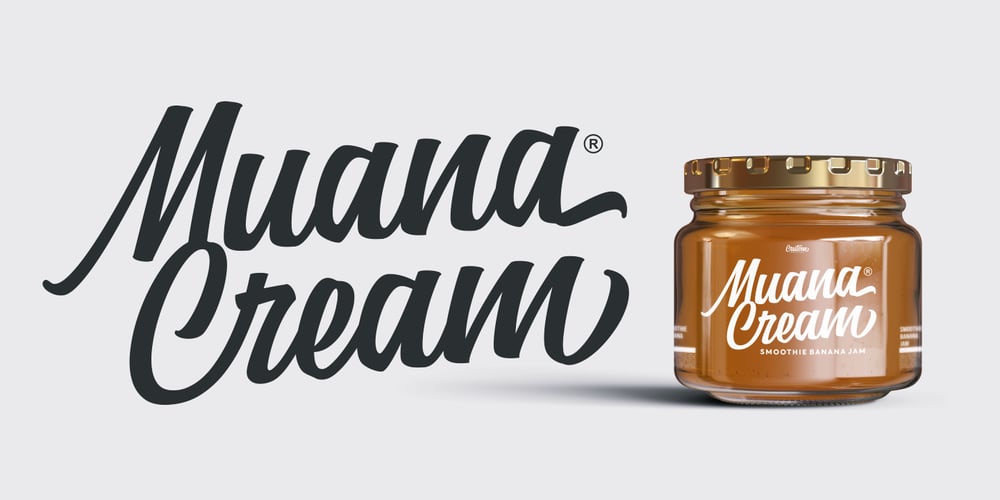
Crutsen Font Family was designed by Adil Budianto and published by Surotype. Crutsen contains 1 styles and family package options. Modern script typeface with a sense of calligraphy style that comes with clean style finishing. Some of the letters have an alternative character especially on ascender, descender and also lowercase. This typeface is great for Logotype, Poster, Digital Lettering Arts, Clean Design, Branding Design, Signs, etc. To enable Stylistic OpenType alternatives, you need a program that supports OpenType features like Adobe Photoshop CS, Adobe Illustrator CS, Adobe Indesign & CorelDraw X6-X7 and more.